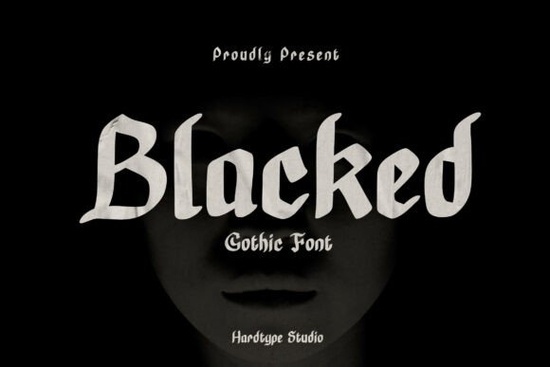
If you've been searching for a typeface that captures the raw energy of gothic and blackletter styles, the Blacked Font is worth a close look. This bold blackletter typeface draws from medieval lettering traditions and dark aesthetics, combining strong strokes and sharp details into a design that feels both historic and modern. It's built for projects that need visual weight logos, posters, album covers, apparel, and branding work that demands attention.
What Makes a Gothic Font Like Blacked Stand Out?
Gothic and blackletter typefaces have been around for centuries, but not all of them work well in modern design. Many look great at large sizes but fall apart when used smaller or on screen. What sets the Blacked font apart is that it keeps that classic blackletter character while still being readable. The letterforms are bold and detailed without becoming cluttered or hard to decode.
For designers working on dark-themed visual identities think tattoo studios, gaming brands, metal band merchandise, or horror-themed event posters this kind of balance matters. You want the style to feel authentic without sacrificing clarity.
Who Is This Font Best Suited For?
This typeface works well for a surprisingly wide range of creatives:
- Print-on-demand sellers designing t-shirts, hoodies, and mugs with bold gothic text
- Small business owners creating logos or branding for edgy, alternative, or vintage-inspired brands
- Book and album cover designers who need dramatic typography for fantasy, horror, or music projects
- Tattoo artists and illustrators looking for reference lettering styles or flash sheet designs
- Gaming creators working on title screens, stream overlays, or in-game UI elements
- Crafters and hobbyists making custom invitations, wall art, or scrapbook elements with a dark twist
If any of those describe your work, the Blacked blackletter font could easily become a regular part of your design toolkit.
Where Does Blacked Font Work Best?
The strongest use cases tend to be projects where typography is a visual centerpiece, not just functional text. Here are some ideas that pair naturally with this style:
- Logo design especially for streetwear brands, breweries, barbershops, and tattoo parlors
- Album and single covers for genres like metal, hip-hop, and dark electronic music
- Poster and flyer layouts concert posters, movie night promos, Halloween event graphics
- Apparel mockups bold chest prints on dark fabric look incredible with this style
- Book covers fantasy, thriller, and gothic romance genres benefit from strong blackletter type
- Social media graphics quote posts, story backgrounds, and promotional banners with a dark aesthetic
The key is pairing it with the right context. A gothic font on a pastel floral background might feel off, but layered over a dark textured surface with minimal other elements, it really comes to life.
How Does It Compare to Other Blackletter Fonts?
There are plenty of blackletter fonts available online, and each one carries a slightly different mood. Some lean more traditional and calligraphic, while others push toward a modern, almost industrial feel. The Blacked typeface sits in a useful middle ground it respects the history of gothic lettering but doesn't feel like a museum piece. You can use it in contemporary layouts without it looking outdated.
If you're exploring options, comparing it against styles like Fette Fraktur or Old English can help you see where it fits in terms of weight, detail level, and overall personality. Each brings something different to a project.
Quick Tips for Working with Blackletter Typography
- Keep surrounding elements minimal. Gothic fonts are visually dense give them breathing room.
- Pair with simple sans-serifs for body text or secondary information. Two decorative fonts together usually clash.
- Use high contrast light text on dark backgrounds or vice versa works best.
- Avoid using it at very small sizes for paragraphs. It's designed for headlines and display use.
- Test readability at the actual size your audience will see it, especially for apparel and merchandise mockups.